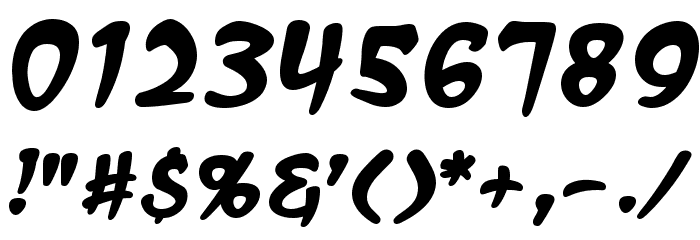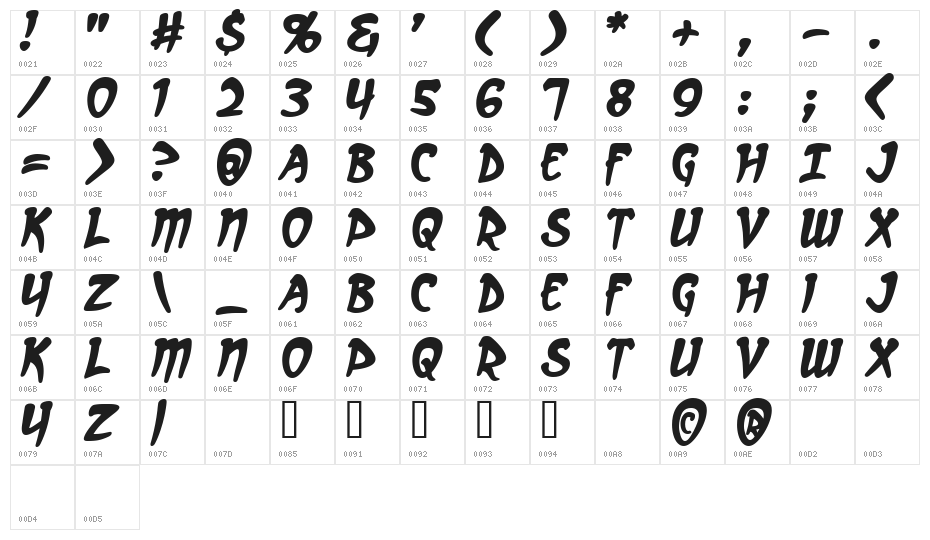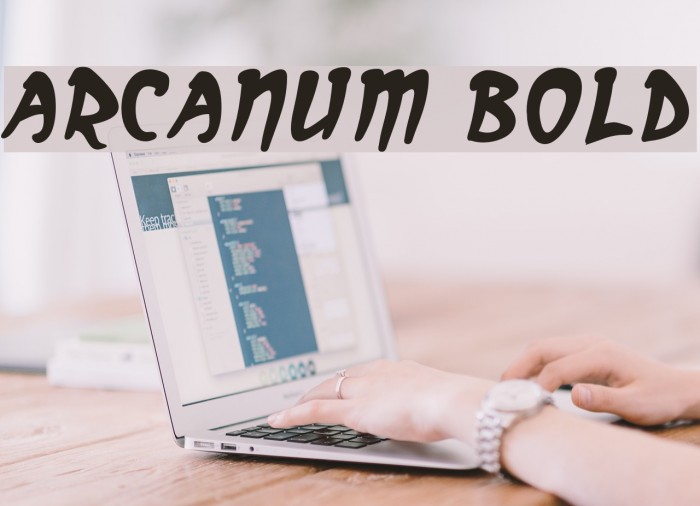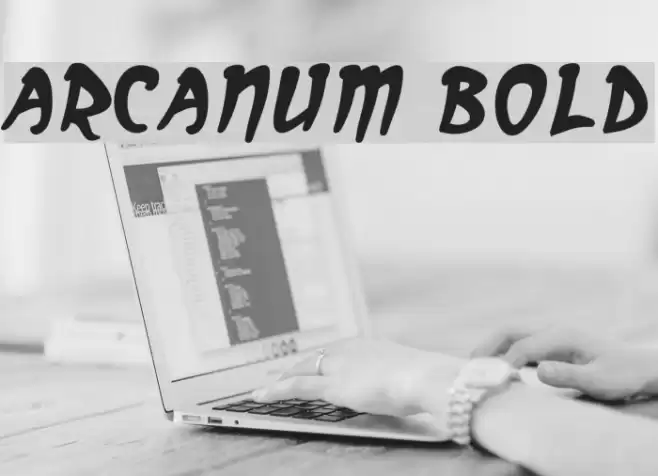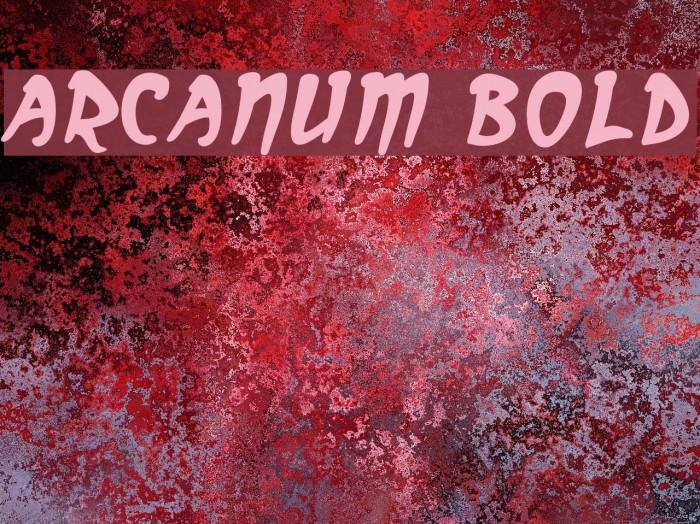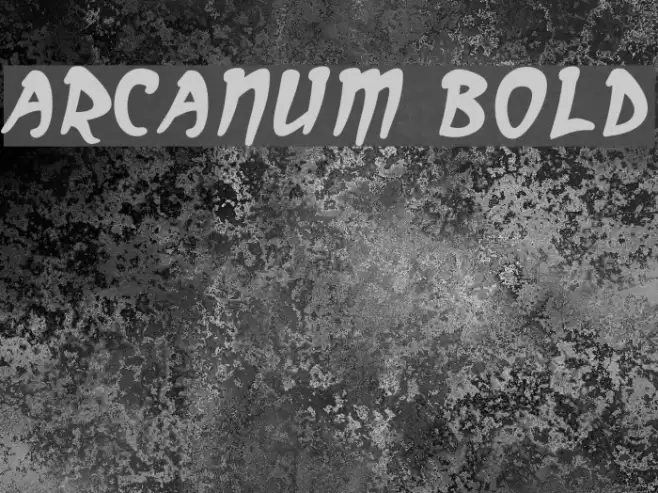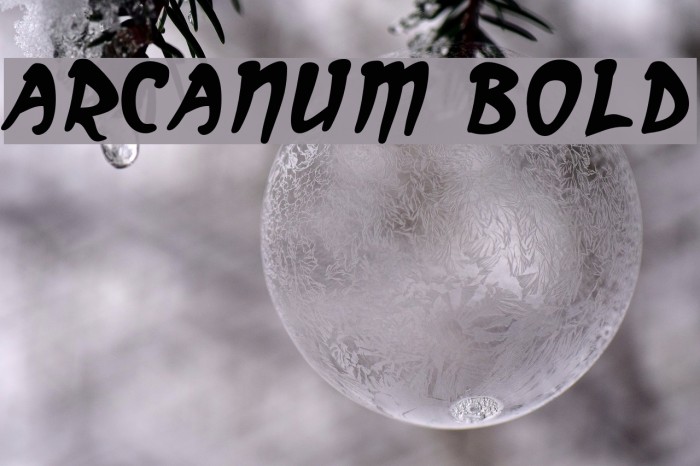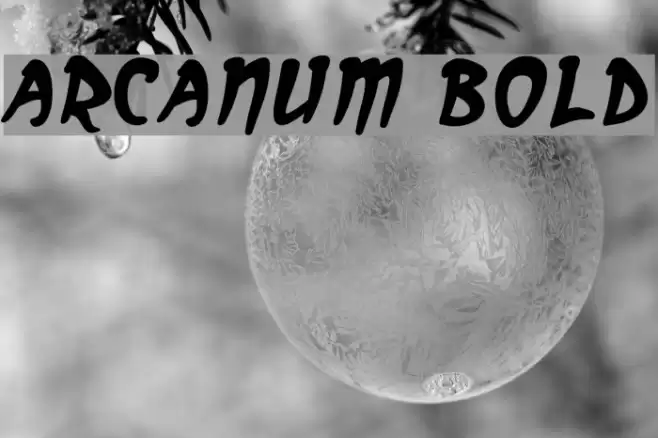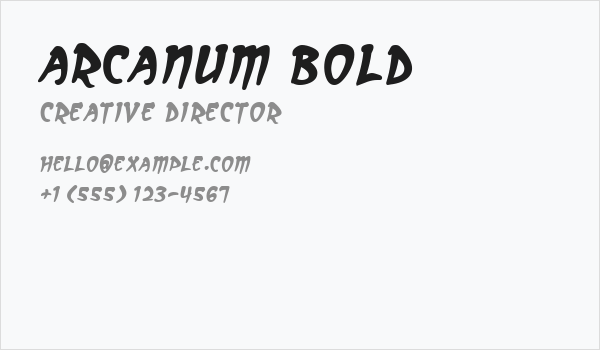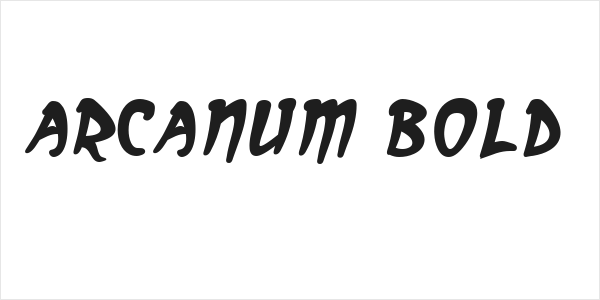
Arcanum Bold Font
Arcanum Bold Description
This font features a bold and dynamic style with a distinct handwritten appearance. The characters are slightly slanted, giving a sense of movement and energy. The strokes are thick and consistent, providing a strong visual impact. The uppercase and lowercase letters maintain a cohesive look, with rounded edges and smooth curves. Numbers and special characters are designed to match the overall aesthetic, ensuring versatility across various applications. The font's boldness makes it suitable for attention-grabbing designs.
| Proposed Projects | Ideal for posters, logos, branding materials, and headlines that require a strong visual presence. |